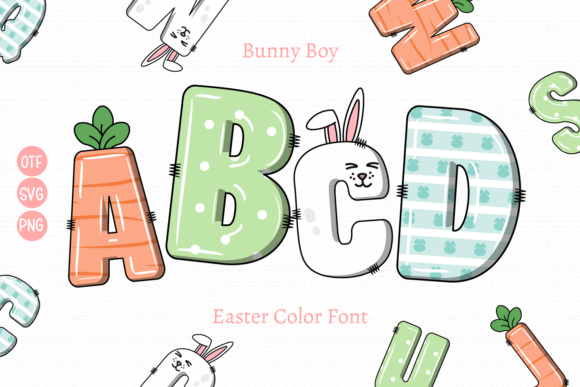
Bunny Boy Font: The Ultimate Easter-Inspired Font for Creative Projects
Are you looking for a font that can add a touch of charm and authenticity to your creative projects? Look no further than the Bunny Boy Font, a vibrant Easter-infused font that’s perfect for a multitude of design applications. In this article, we’ll introduce you to the Bunny Boy Font, explore its features, and discuss how you can use it to take your designs to the next level.
What is Bunny Boy Font?
Bunny Boy Font is a unique and delightful font that’s characterized by its Easter-inspired design. The font features a playful and charming texture that’s perfect for adding a touch of whimsy to your designs. Whether you’re creating blog posts, logos, branding designs, promotional content, party invites, or social media graphics, Bunny Boy Font is the perfect choice.
Features of Bunny Boy Font
Bunny Boy Font offers a range of features that make it an ideal choice for creative projects. Some of the key features of this font include:
- Vibrant Easter-infused design: The font features a unique and colorful Easter-inspired design that’s perfect for adding a touch of fun and whimsy to your designs.
- Charming texture: The font has a delightful texture that’s perfect for creating designs that are both charming and authentic.
- Multitude of creative applications: Bunny Boy Font is perfect for a wide range of creative projects, including blog posts, logos, branding designs, promotional content, party invites, and social media graphics.
Using Bunny Boy Font for Creative Projects
Bunny Boy Font is a versatile font that can be used for a wide range of creative projects. Here are some ideas for using this font:
- Blog posts: Add a touch of whimsy to your blog posts with Bunny Boy Font. Use it to create headings, titles, and other text elements that will grab the attention of your readers.
- Logos and branding designs: Use Bunny Boy Font to create unique and memorable logos and branding designs. The font’s playful texture is perfect for creating a brand identity that’s both fun and professional.
- Promotional content: Bunny Boy Font is perfect for creating promotional content, such as flyers, brochures, and posters. Use it to create eye-catching headlines and text elements that will grab the attention of your target audience.
- Party invites: Create fun and playful party invites with Bunny Boy Font. The font’s Easter-inspired design is perfect for creating invites for Easter-themed parties and events.
- Social media graphics: Use Bunny Boy Font to create social media graphics that will stand out from the crowd. The font’s playful texture is perfect for creating graphics that are both fun and engaging.
Tips for Using Bunny Boy Font
Here are some tips for using Bunny Boy Font:
- Experiment with different colors: The color version of Bunny Boy Font offers a range of creative possibilities. Experiment with different colors to create unique and eye-catching designs.
- Use it for Easter-themed designs: Bunny Boy Font is perfect for Easter-themed designs. Use it to create Easter-themed party invites, social media graphics, and other designs.
- Combine it with other fonts: Bunny Boy Font can be combined with other fonts to create unique and interesting designs. Experiment with different font combinations to find the perfect look for your design.
| Author | Brown Cupple Fonts |
Bunny Boy Font is a unique and delightful font that’s perfect for creative projects. Its vibrant Easter-infused design and charming texture make it an ideal choice for adding a touch of whimsy to your designs. Whether you’re creating blog posts, logos, branding designs, promotional content, party invites, or social media graphics, Bunny Boy Font is the perfect choice. With its compatibility with various design programs and technical details, Bunny Boy Font is a font that’s sure to inspire your next creative triumph.